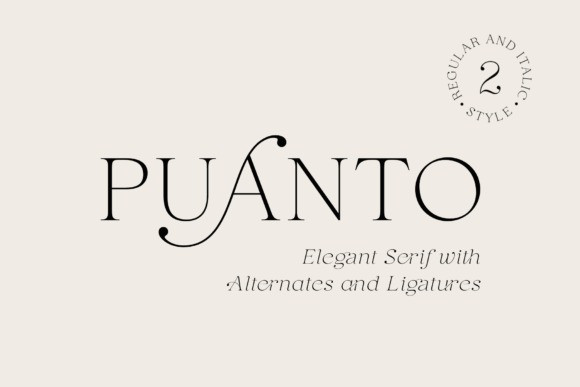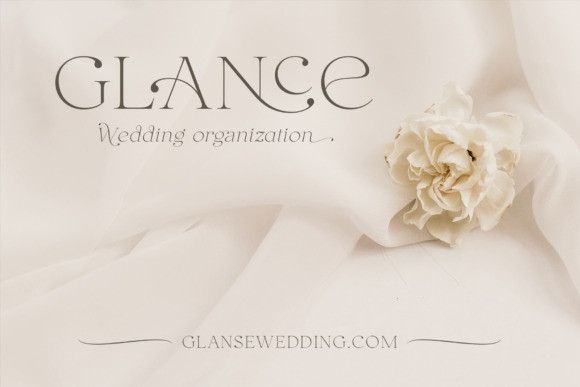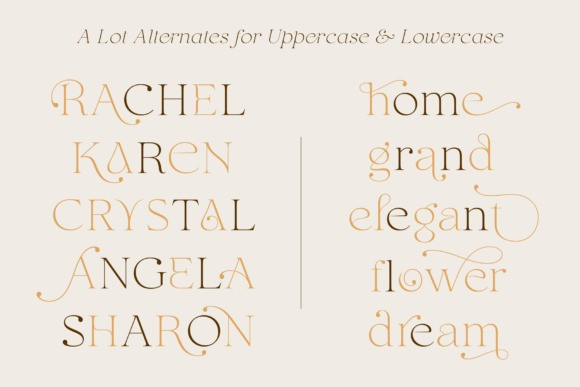
Puanto Font
Puanto is a elegant serif font that includes two styles: regular and true Italic.
This font has a lightweight and looks amazing in logos, branding, arranging wedding invitations, business cards, packaging, titles and much more, it is very readable and recognizable. This font includes alternates and ligatures for Uppercase and Lowercase, with them you can make your project more elegant and unique and italic style will add dynamics to your design, it also includes alternates and ligatures This font is easy to use has OpenType features.